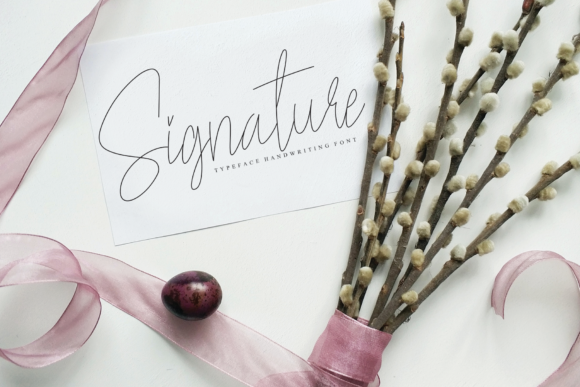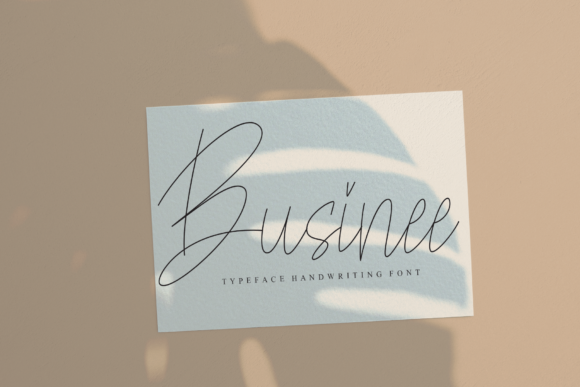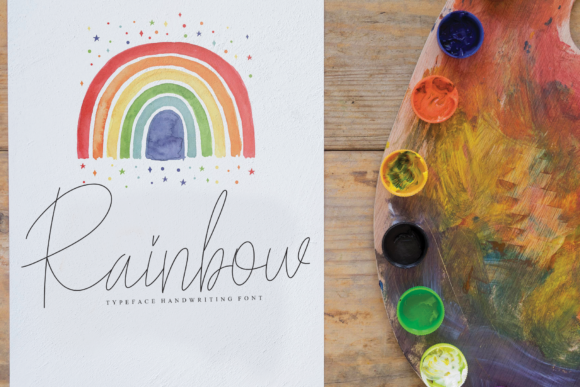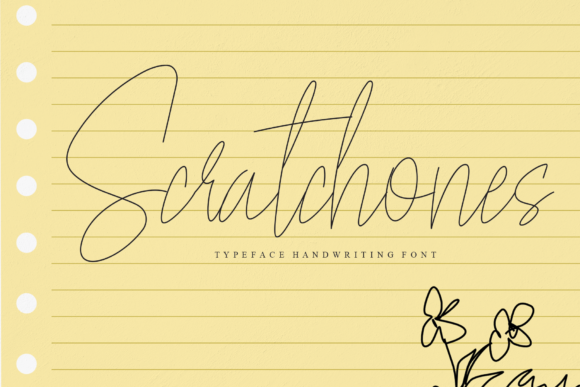
Yellowstone Font
About Yellowstone Font
Yellowstone is a fashionable and thin lettered handwritten font. It has beautiful and well balanced characters and as a result, it matches a wide pool of designs.